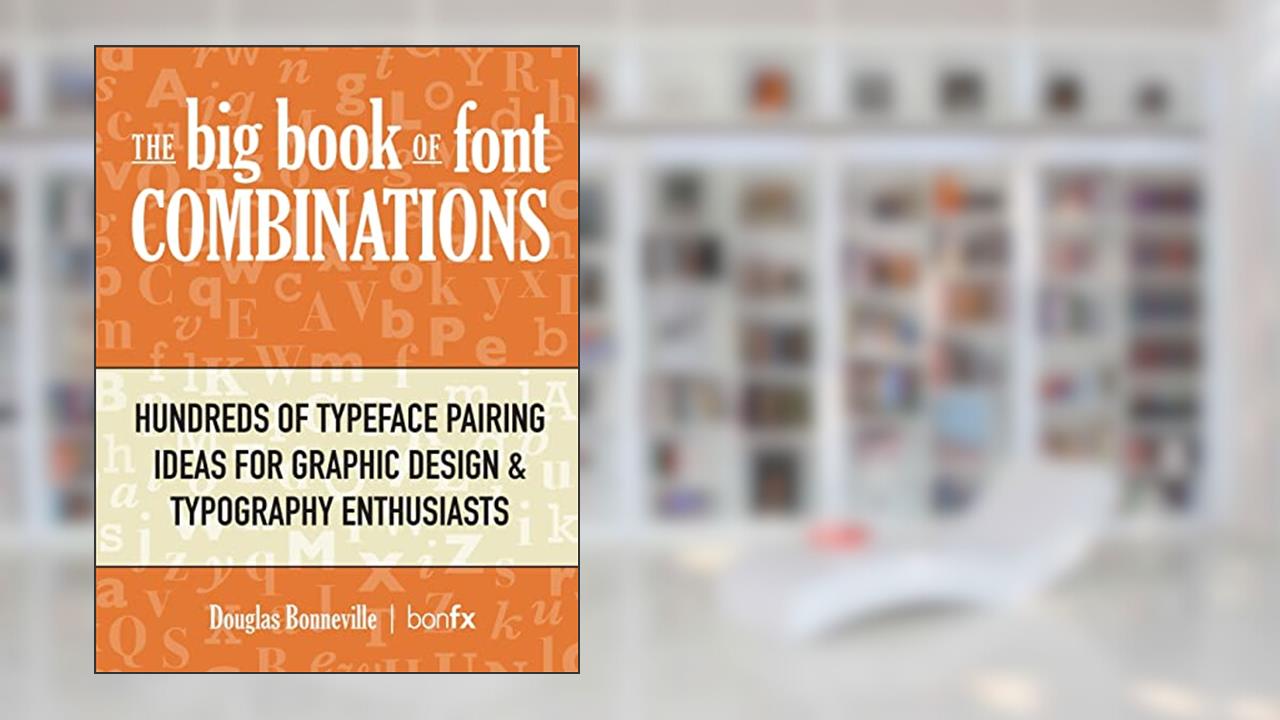
The Big Book of Font Combinations
Hundreds of Typeface Pairing Ideas for Graphic Design & Typography Enthusiasts
Douglas Bonneville
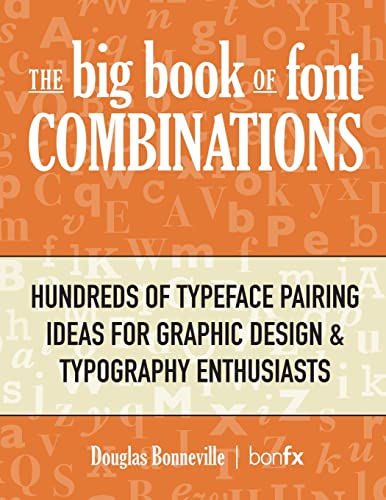
Exploring the world of typography can often feel like stepping into a vibrant candy store, where an array of colors, shapes, and vibes compete for your attention. The Big Book of Font Combinations by Douglas Bonneville serves as the ultimate guide, a treasure trove of typeface pairings that will invigorate your graphic design projects and breathe new life into your artistic expressions. With hundreds of unique combinations waiting to be uncovered, this book pulls you into a creative whirlwind that transforms the mundane into the magnificent.
At its core, this book is an eloquent anthem for design enthusiasts, offering a deep dive into the art of pairing fonts. Bonneville does more than just showcase a selection of typefaces; he crafts a narrative around each pairing, illustrating not only their visual appeal but also their emotional resonance. The thrill lies in the way each combination narrates a story-whether channeling the elegance of a classic serif coupled with a modern sans-serif or capturing the playful spirit of an open typeface blended with a bold display style. Every page turns into a vivid proposition, urging you to experiment, to play, to feel the fonts.
Readers have been vocal about their love for this tome, praising Bonneville for his keen eye and intuitive understanding of how typefaces communicate beyond mere letters. Yet, no masterpiece comes without its detractors. Some critics argue that while the book is visually stunning, it occasionally lacks deeper insights into the principles of typography. They contend that casual readers might miss the intricacies behind font pairing. However, is not the generous sharing of inspiration what makes this work essential for anyone in the design field? After all, inspiration is what fuels creativity, and Bonneville delivers it in spades.
As the graphic design world evolves, so does the significance of type. The right font can ignite emotions, invoke nostalgia, and resonate with audiences more powerfully than words alone. Bonneville's work taps into this undeniable power, presenting pairings that have the potential to alter perceptions and provoke thought. In a digital landscape where first impressions mean everything, this book arms designers with the tools to make impactful statements through typography.
This deep appreciation for fonts is rooted in a historical context where typography was once simply functional. Today, it is a form of art that demands respect and understanding. As Bonneville expertly reveals, the marriage of typefaces is not just a design choice; it is a profound form of storytelling. Think of the iconic branding of global giants that we can't help but associate with their type choices. This is the kind of transformative power that The Big Book of Font Combinations celebrates and nurtures.
As you leaf through the pages, you catch yourself lost in possibilities, your mind racing with the designs that lay ahead. This book doesn't just appeal to seasoned designers; it invites novices to dip their toes into the vast ocean of typography. It champions the notion that every designer, regardless of experience, can craft impactful visual narratives through careful font selection.
So here's the challenge: will you let this opportunity slip by? Will you allow your creativity to remain dormant, shackled by outdated ideas of what design should be? Or will you rise to the occasion, diving headfirst into the world of type combinations that The Big Book of Font Combinations so passionately lays out before you? The choice is yours, but remember-every moment you choose not to explore this vibrant universe is another moment where your designs could have soared beyond imagination.
In a fast-paced, visually-driven world, what better way to captivate your audience than with the incredible art of typography? Embrace the wisdom of Bonneville, and let your type choices speak louder than words.
📖 The Big Book of Font Combinations: Hundreds of Typeface Pairing Ideas for Graphic Design & Typography Enthusiasts
✍ by Douglas Bonneville